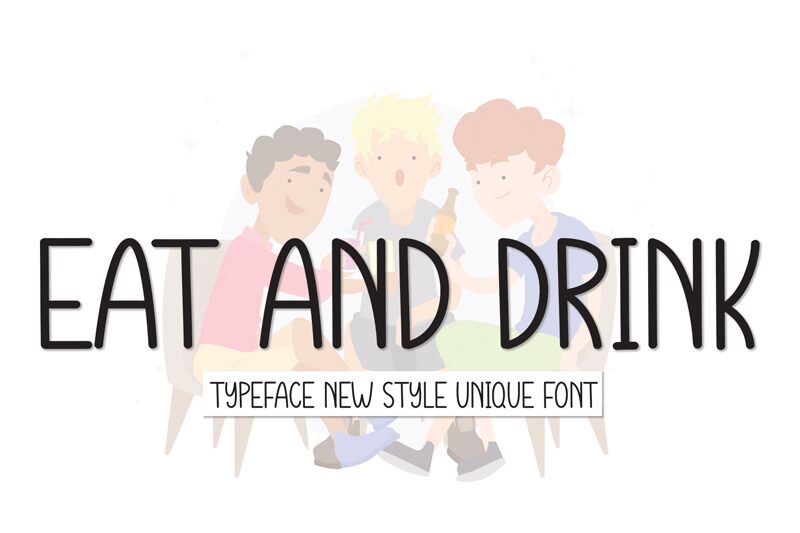
Eat And Drink
Eat And Drink by Scratchones is a font that exudes a casual charm with its handwritten style, inviting warmth and personality into any design. Its condensed format lends a cozy, space-efficient flair, making it perfect for crafting messages that need to feel personal yet fit snugly on the page.
With its approachable and friendly character, Eat And Drink is ideally suited for café menus, food packaging labels, or any project that desires a touch of handmade authenticity. It's the kind of font that can make words look as if they were penned by a friend on an inviting note or a thoughtful invitation to a home-cooked meal. Whether it's giving life to branding projects or adding an intimate whisper to personal stationery, Eat And Drink stands out with its delightful and unassuming sophistication.